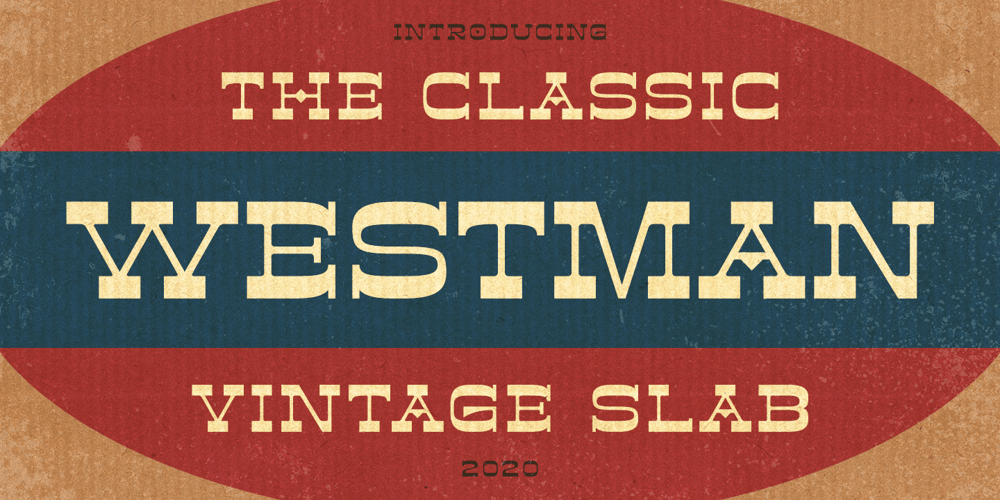
Westman Font Family was designed by Abdul Malik Wisnu and published by Almarkha Type. Westman contains 1 styles and family package options. Westman is a inspired by classic fonts with retro style combined with decorative Slab style nuances of western back to the era of the 60’s – 70’s, a style that is timeless.Westman is perfect for vintage,social media posts, Craft , Product packaging, product designs, label, branding projects, logo, advertisements, watermark, invitation, stationery and any projects